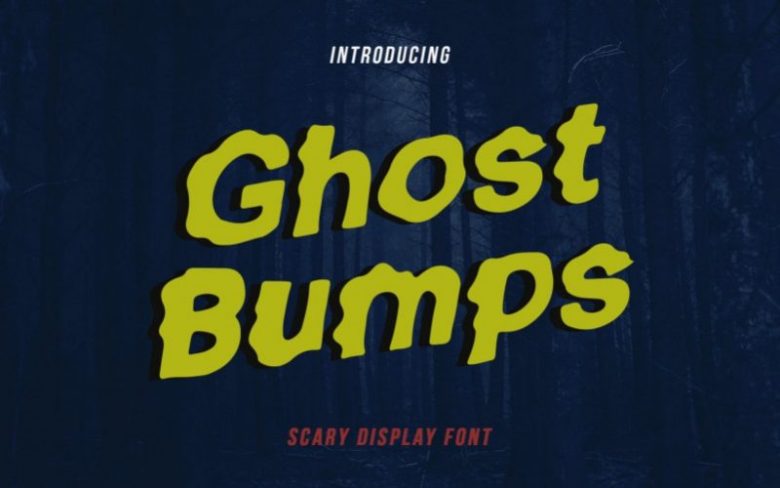
Ghost Bumps Display Font
We are happy to introduce our new font “Ghostbumps” is a scary display font, this font looks horror, cool, cartoon, playful, catchy and easy to use.